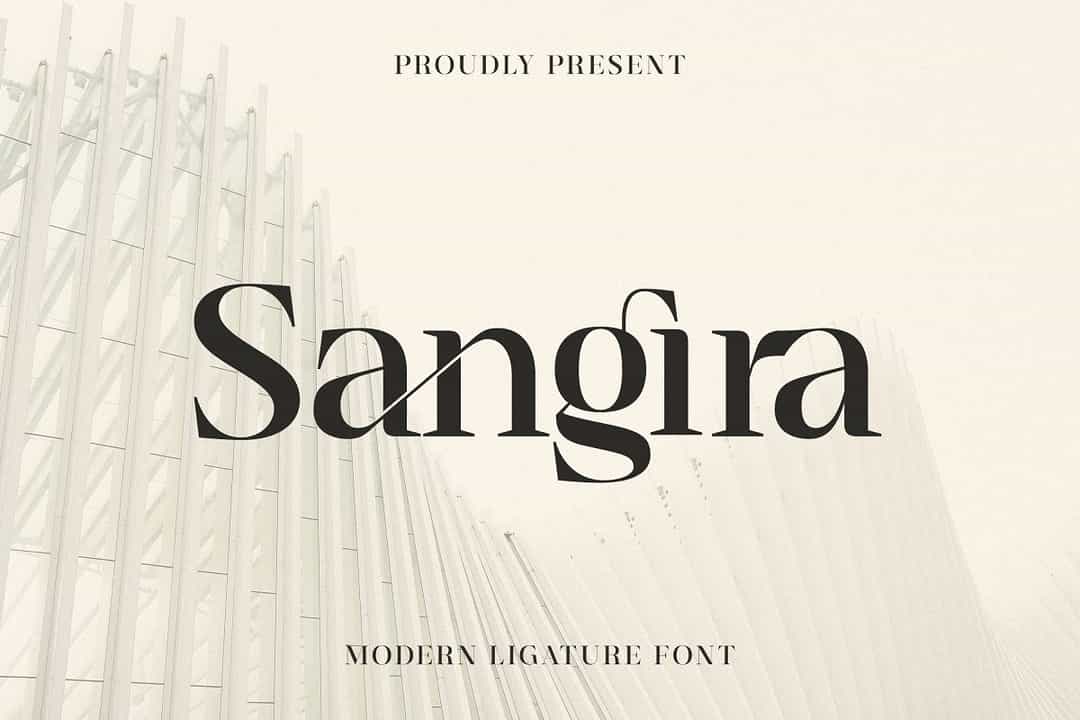
Sangira can be described as a modern ligature serif designed as an update on minimalist logos, making it suitable for creating brochures, templates videos ads logos and much more.